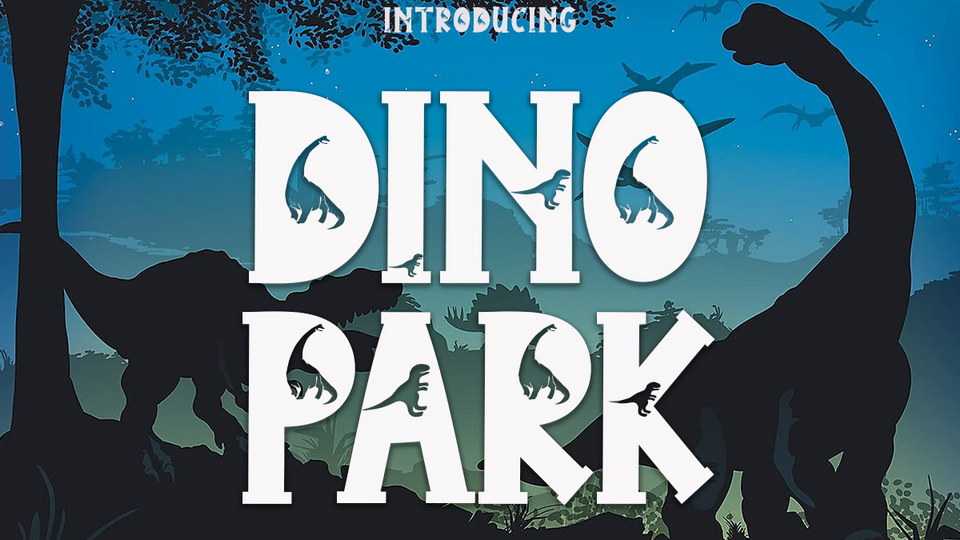
Download Dino Park font, a fun display typeface carefully crafted by incorporating dinosaur into its writing. Dino Park is very suitable for your projects.